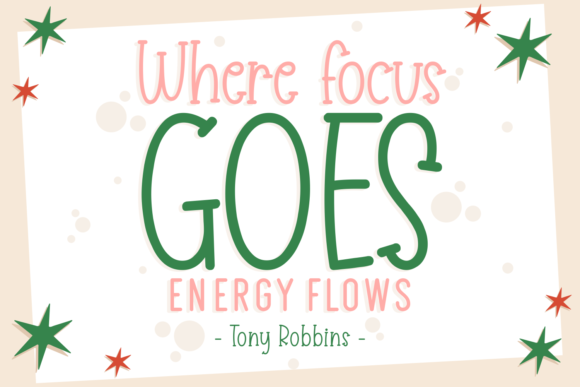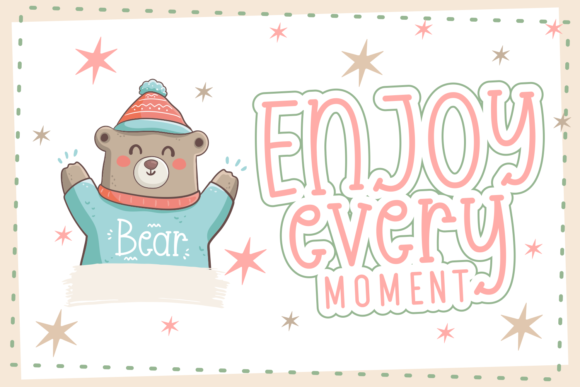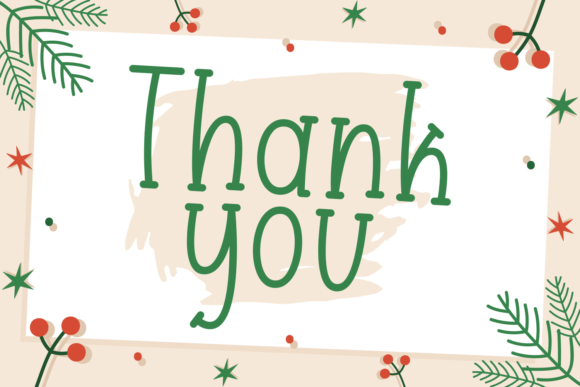
Introduction to Plamink Font
Plamink is a cute and quirky display font.
It is whimsical, playful and thin This original look will appeal to a wide range of crafty ideas, from letterheads and titles, to stationery.
Key Features of Plamink Font